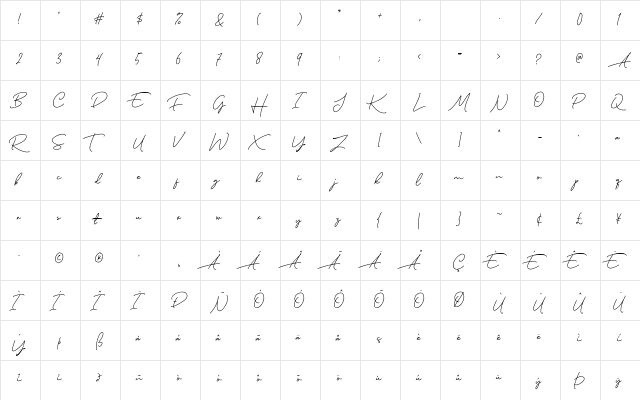
Murphy Script Regular
| Designer | Sarid Ezra |
Design Context for Murphy Script Typeface
Murphy Script flows with the natural rhythm of handwritten lettering, making it ideal for designs that call for warmth and personal expression.